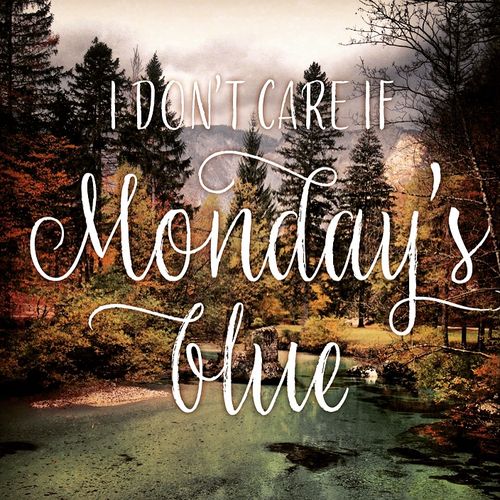
‍‍‍‍Q&A Ulrike Rausch
It seemed interesting to us to make you discover the profiles of our guests. Discover Ulrike Rausch’s interview.
Biography Ulrike Rausch founded her own type foundry LiebeFonts in 2009, providing handwriting typefaces with a charming personality and obsessive attention to detail. Her growing portfolio of handwriting fonts has been used in publications, advertisements, and websites all around the world. She also creates custom typefaces for clients. She wrote the book “Making Fonts!”, a comprehensive guide to type design and font production.
Interview
What is your work environment?
Ulrike Rausch I spent two years in home office. While feeling comfy and protected during Covid times, I really enjoy leaving home again in the morning and having a bit of a commute by bike. Hanging out with like-minded people in a shared office makes me actually feel like a human being and working just appears to be so much more productive.
What do you prefer: working for clients or for your typefoundry?
Ulrike Rausch I dedicate most of my time working on fonts for my own library. And since I usually create these fonts with a specific use case for myself in mind, I am absolutly passionate about adding all kinds of extras to my fonts – meticulous details that probably nobody else ever notices.
When now and then I get an inquiry for a custom font, my first reaction is often denial and reluctance. But after each client’s project, I am also thankful and glad having had the opportunity to work together with other people on a project. Changing perspectives, being pulled-out of my usual working habits, and sparking different design ideas, is arduous but also very refreshing in the end!
“I am absolutely passionate about adding all kinds of extras to my fonts – meticulous details that probably nobody else ever notices.”
– Ulrike Rausch
LiebeHeide is a digital script font who imitate so well natural handwriting! Easy access to special effects via OpenType features.
Are your script fonts designed on paper?
Ulrike Rausch Definitely yes, since most of my fonts are based on handwritings or calligraphy. Sometimes designers actually ask me what kind of Photoshop filter I use, in order to get this authentic handmade style. 😅 The idea of using analog tools and spilling ink, somehow completely vanished from some people’s radar.
What will be the message you would like to convey during your Now23 talk?
Ulrike Rausch When people see my fonts, which look so charming and hand-made, they often have a quite romantic idea of my daily working routine. Most people think I spend all day sitting at my desk with all my pens and brushes just drawing alphabets. In reality, the analog process of my work is just around 5%, the rest is sitting down in front of my computer producing a piece of software. During my talk, I will share some of the tedious workflows it takes, to make handwriting fonts actually look like the real thing.
What speaker wouldn’t you want to miss at Now23?
Ulrike Rausch I am definitely looking forward to see Kimya live on stage. We usually hang out in Berlin playing ping pong or drinking beers (more than often combining both). I am pretty sure she can not only beat me in ping pong, but also in nerding about type.